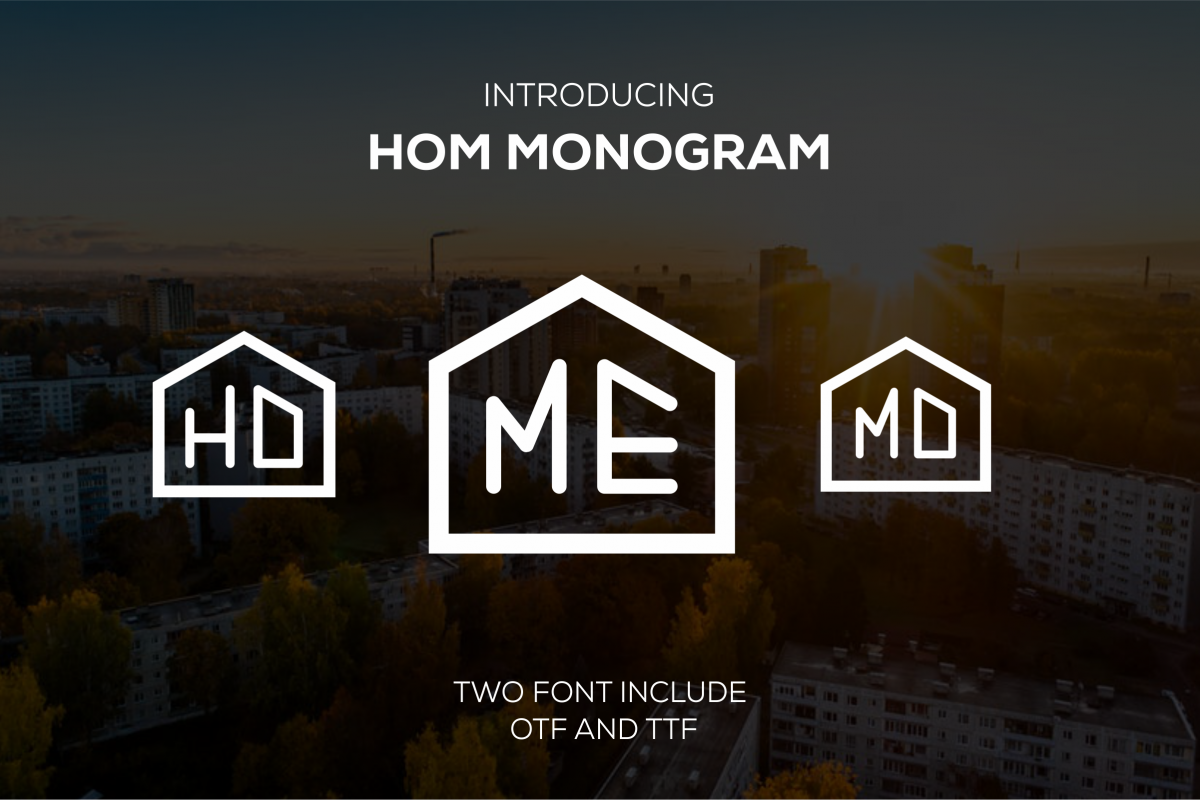
HOM Monogram (rounded)
Hommonogram-Left
Hommonogram-Right
HOUSE MONOGRAM is a trendy monogram set suitable for wedding invitations, branding, stationery, blog design, custom art, custom stamps, logo or custom embossers, or any design purpose. You can use it for your personal use, or for a commercial project.
House Monogram Left (TTF & OTF) - for the LEFT LETTERS of the monogram
House Monogram Right (TTF & OTF)- for the RIGHT LETTERS of the monogram